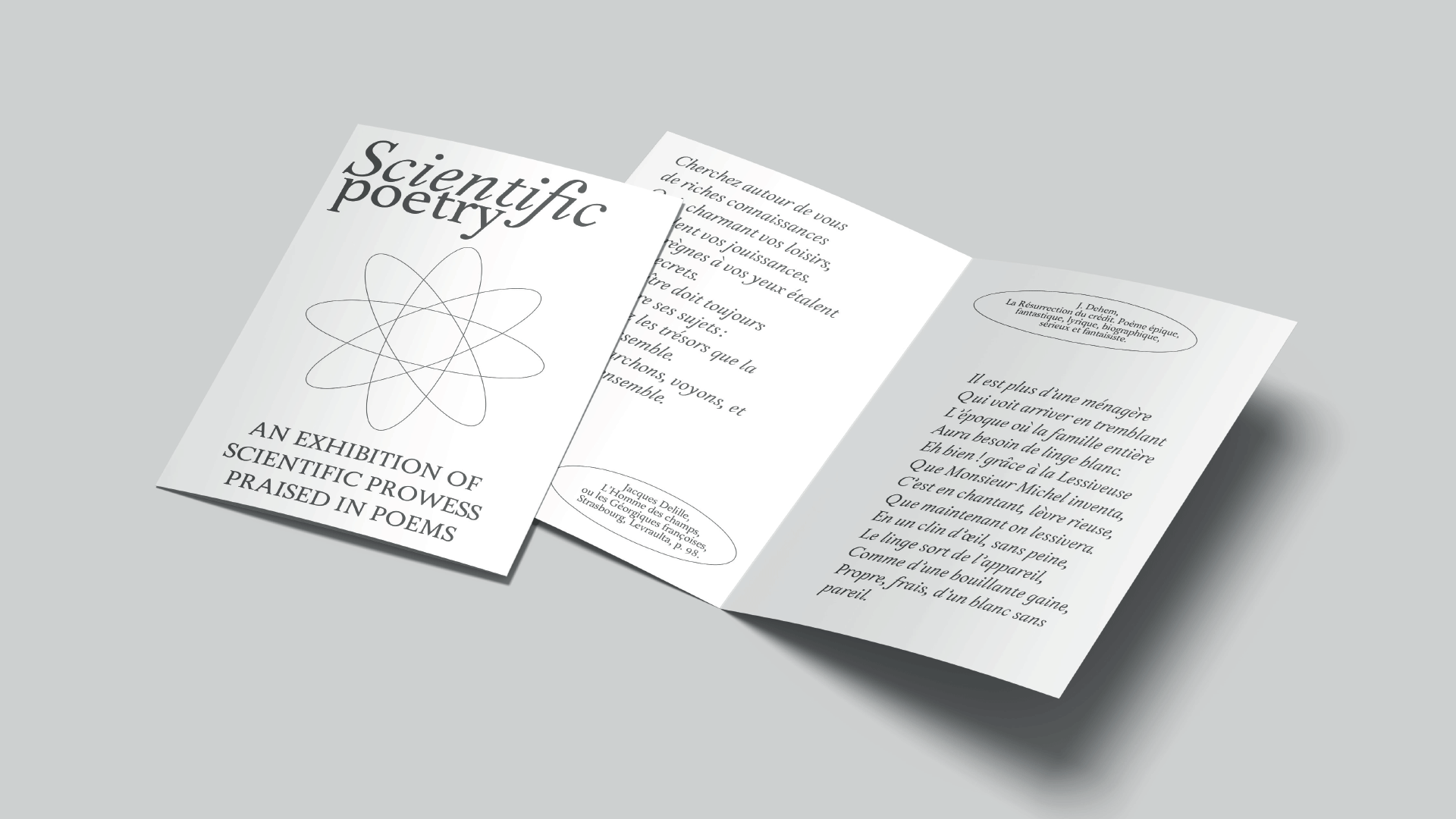
Ellipsae is a typographic family of 6 weights, ranging from light to extrabold, plus an italic version. It was created as part of the scenography for the ”Scientific Poetry” exhibition at the Musée des Arts et Métiers in Paris, which showcases the originality of this literary movement, which had fallen into disuse and abolished the boundaries between literature and science. Indeed, Pierre de Ronsard, Jean de la Fontaine and Victor Hugo praised science in their poems, celebrating the latest medical innovations, mathematical revolutions, astronomy and new energy sources.
The aim is to create a structured typeface, with a geometric base, but one that also reflects the lightness and sensitivity of poetry. To achieve this, the skeleton of my letters is based on Romain du Roi, a typeface developed at the end of the 17th century and commissioned by King Louis XIV. Dino Dos Santos told me during his visit that Louis XIV was so afraid of being betrayed that he kept his court at the Château de Versailles and had this typeface made to ensure the authenticity of official documents and protect himself from swindlers.
The Romain du Roi is distinguished by its proportion, regularity and rigidity. Ideal for representing science. I therefore retained the proportions and shape of the serifs. I’ve also reduced the contrast to get closer to a character of labor.
For the poetic aspect, I wanted to exploit the characteristics of italics to add flexibility and dynamism. That’s why the curves of the round letters are very fast.
The earlier versions of Ellipsae included an angle in the round shapes, to recall the calligraphic origins of the typeface, but this was eventually removed. I’ve also taken the liberty of including details that soften the character, like the slash in the e or the dancing leg in the R.
I was keen to develop an italic version with alternates so that I could use them in pretty poems. In the future, I’d like to develop a condensed version of the typeface.